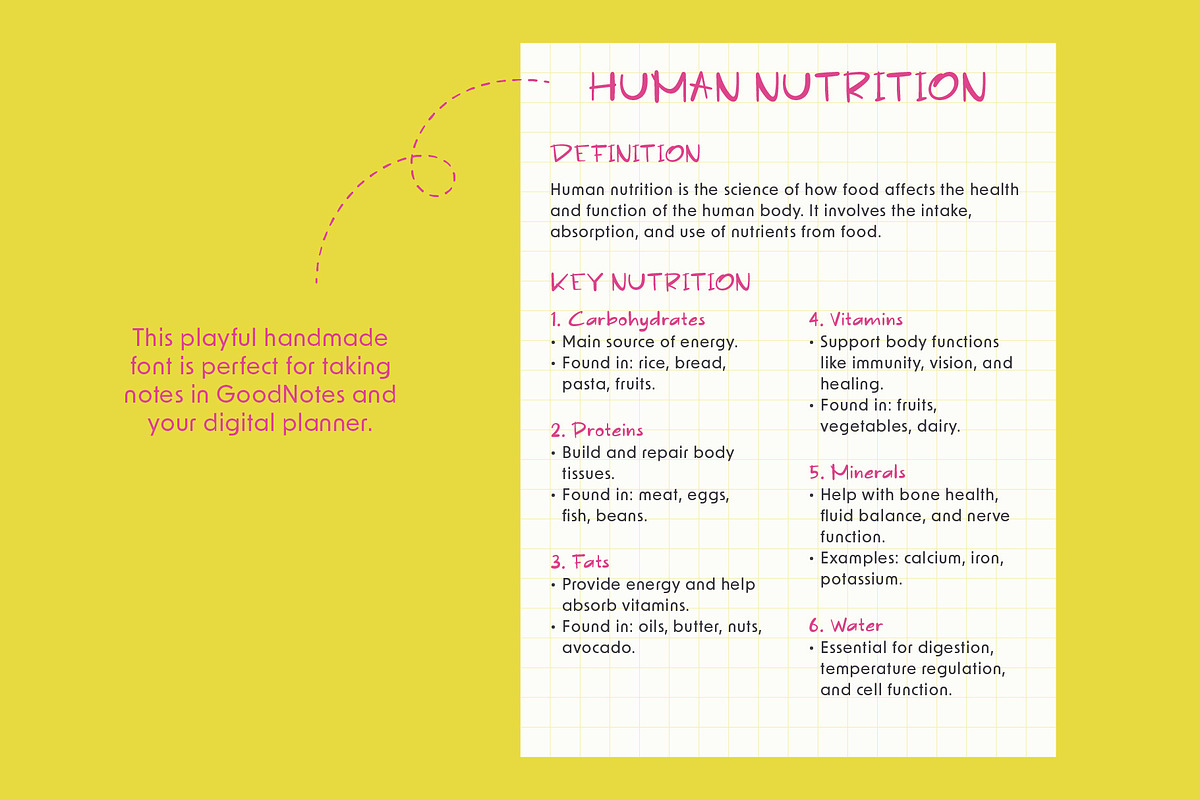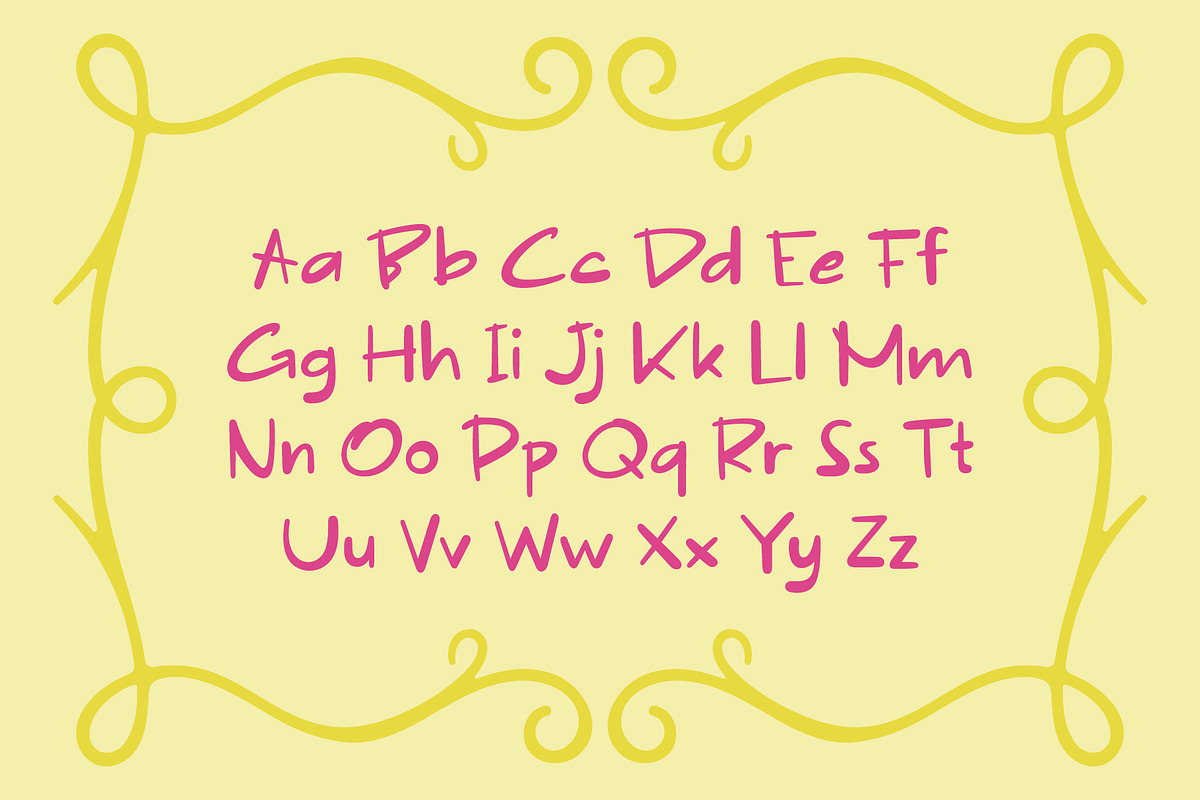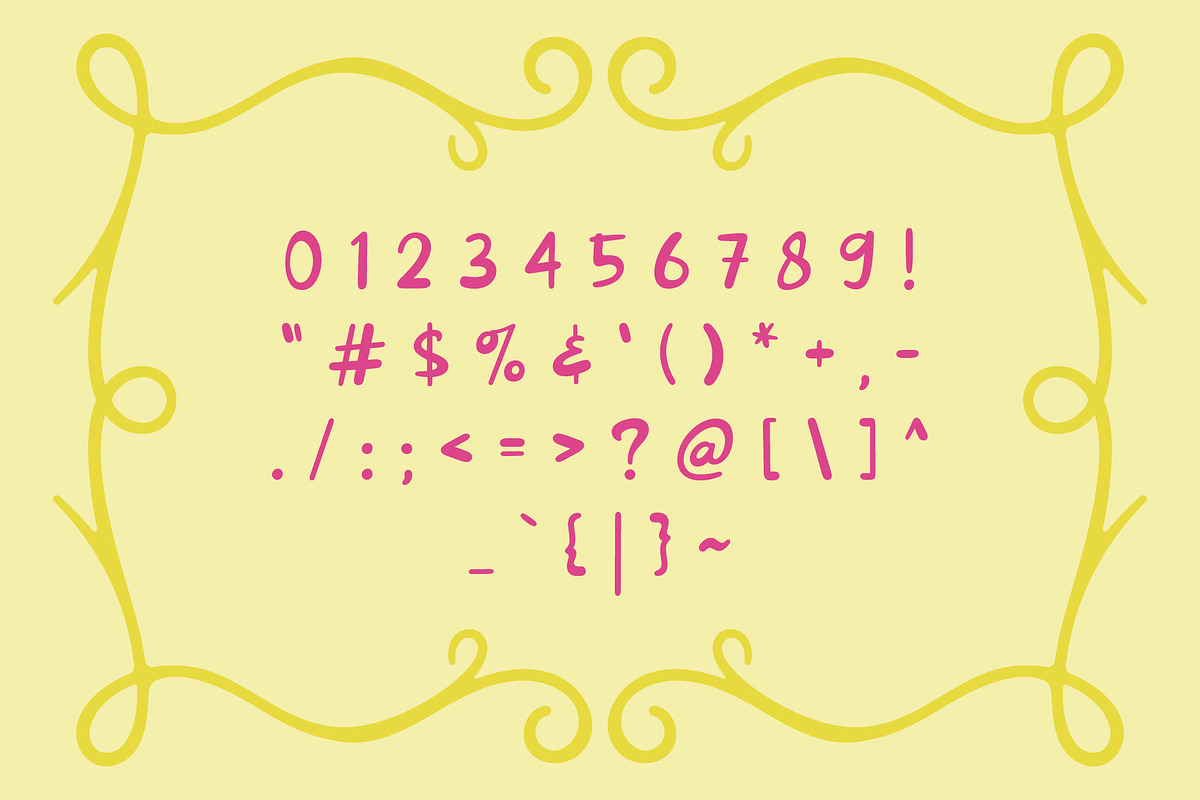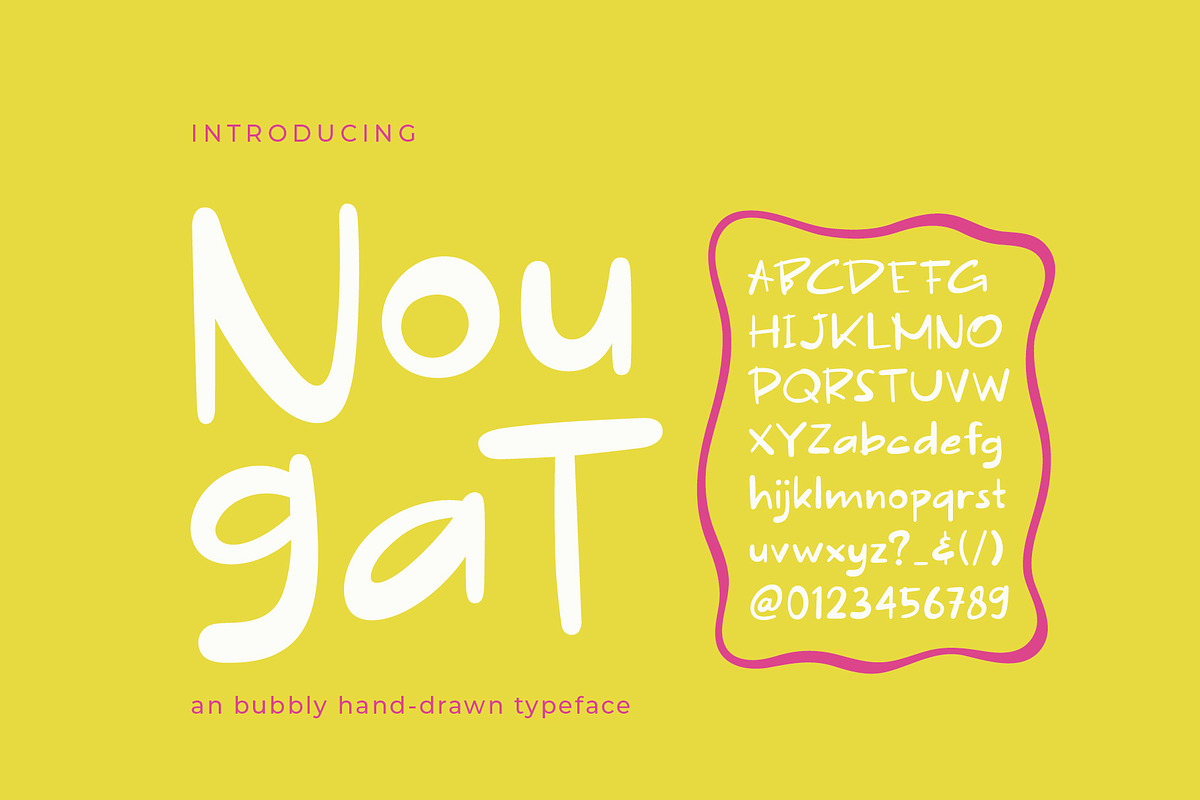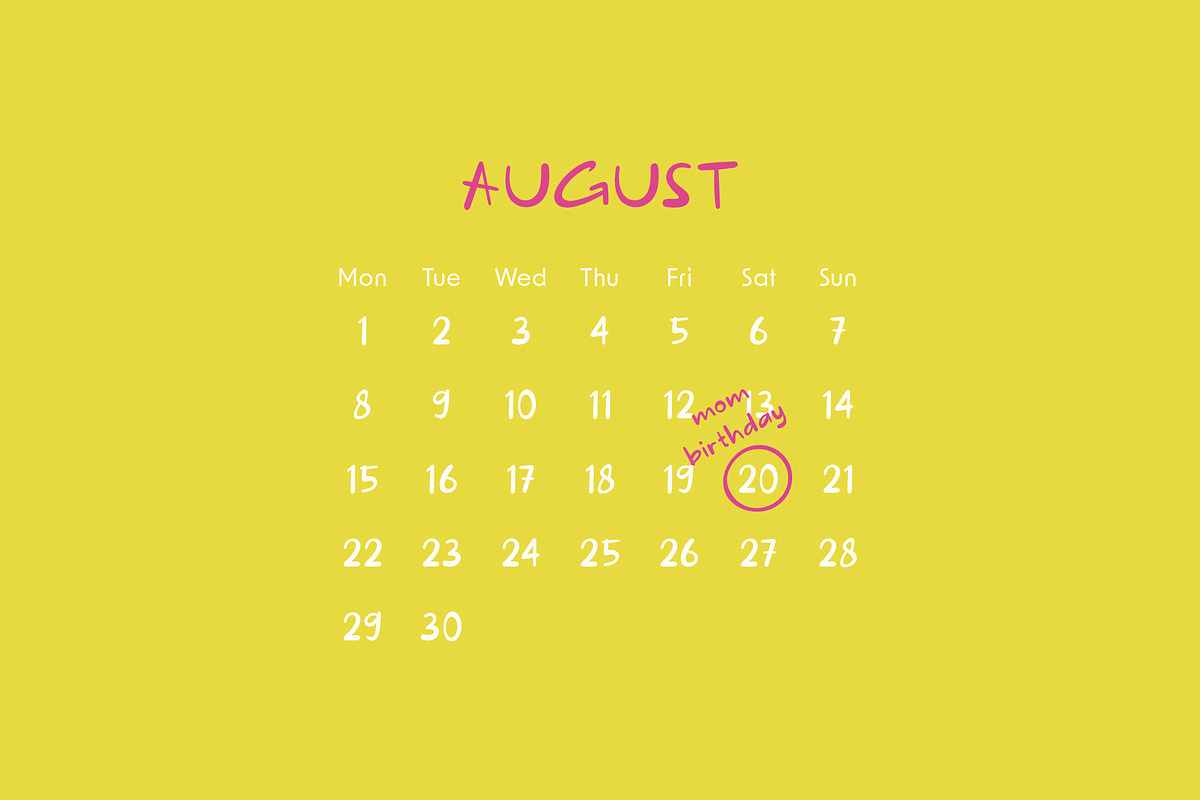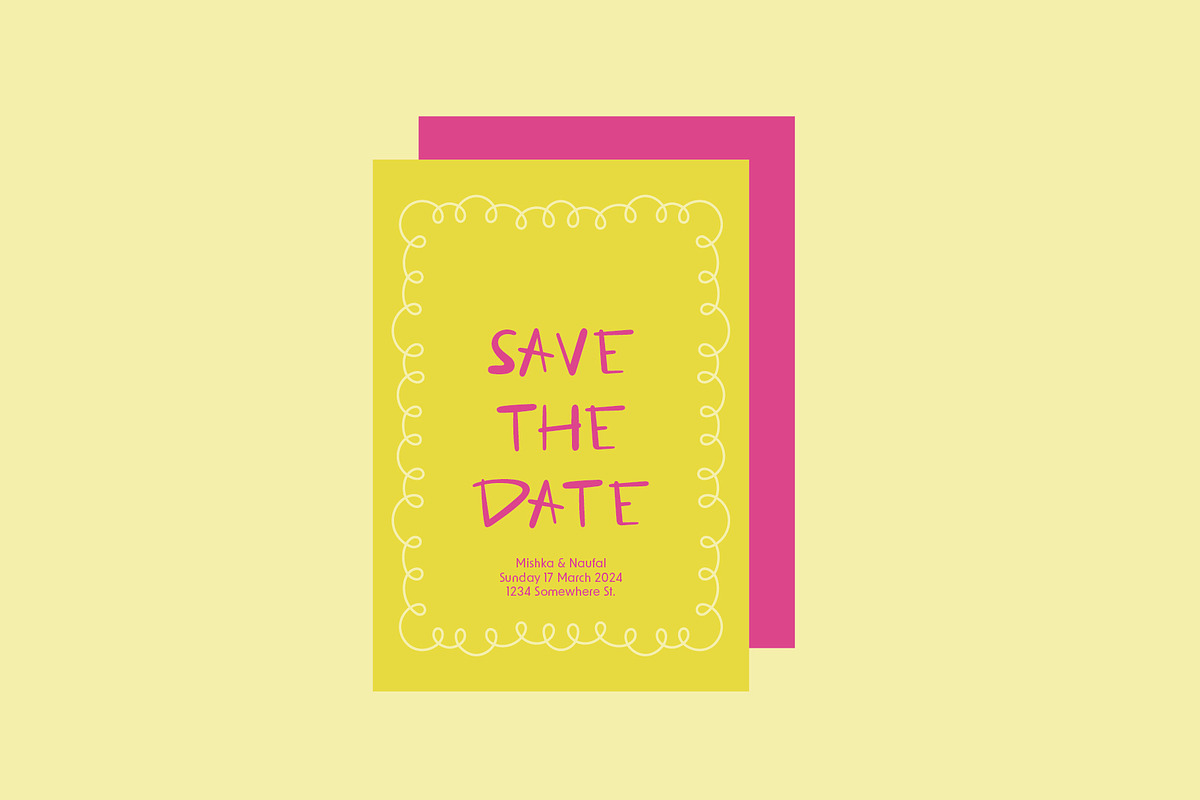
PGR Nougat - Quirky Handwritten Font
Say hello to PGR Nougat – a hand-drawn font that’s as playful and sweet as its name. Designed with a soft, friendly feel, this font is perfect for anything that needs a touch of charm and cheer.
Whether you’re creating for children’s books, toys, birthday invitations, or cute product packaging, PGR Nougat brings just the right amount of fun to your designs. Its slightly imperfect lines and handmade look give it a warm, approachable personality.
The font includes uppercase and lowercase letters, numbers, and a selection of basic symbols. It’s easy to use and works beautifully in both small details and big, bold headlines.